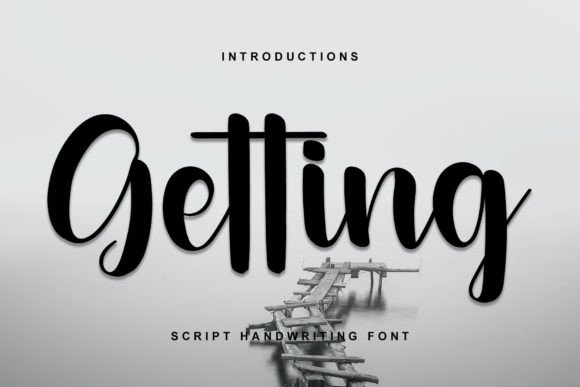
Prepare your projects for academic excellence with Getting Font, a timeless classic calligraphy font that exudes sophistication and elegance. Its meticulously crafted curves and graceful strokes are reminiscent of the beautiful calligraphy of old, yet infused with a modern touch that speaks to contemporary tastes. Let Getting Font elevate your projects with its impeccable form and harmonious balance.
Getting Font is not just a writing tool; it's an artistic companion that transforms your words into works of art. Its stylish handwritten design adds a touch of personality and charm to any project, captivating your audience and leaving a lasting impression. Whether you're creating a school report, an academic presentation, or a formal invitation, Getting Font will lend a touch of sophistication and professionalism that sets your work apart.
With its wide range of applications, Getting Font is the perfect choice for a variety of academic purposes. Use it to compose eye-catching chapter titles, craft informative headings, or add a touch of elegance to your research papers. Getting Font's versatility extends beyond the classroom, making it an ideal choice for creating personalized invitations, wedding stationery, or any other project that demands a touch of timeless beauty.
Getting Font is more than just a font; it's an investment in your academic success and creative pursuits. Its classic charm and versatility will empower you to create stunning projects that reflect your dedication and attention to detail. Join the ranks of those who appreciate the finer things in life and embrace the beauty of Getting Font today.